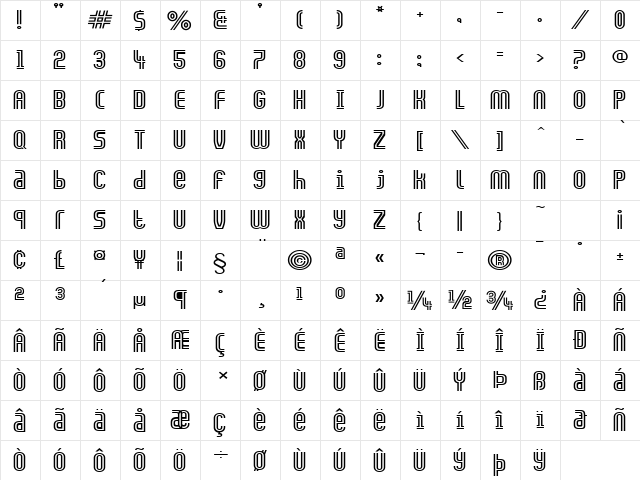
ArchExtended Normal
Design Context for ArchExtended Typeface
ArchExtended is a composed and adaptable typeface that performs quietly and consistently across a wide range of design contexts.